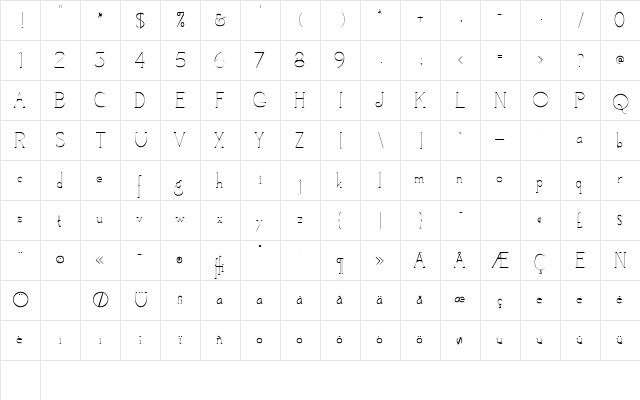
Camelot Regular
Design Context for Camelot Typeface
Camelot offers clean, dependable letterforms without strong stylistic allegiance, making it a practical choice for designers who need flexibility.